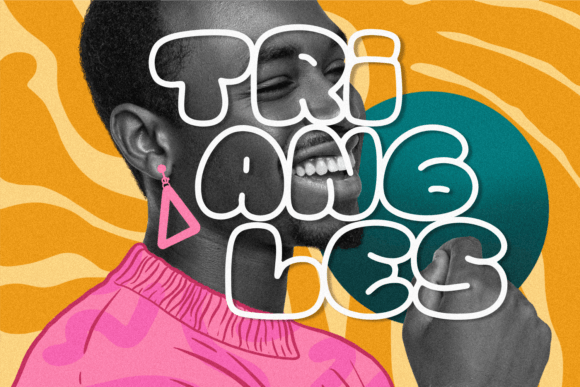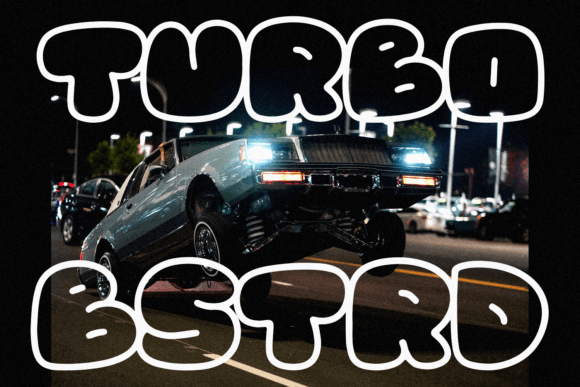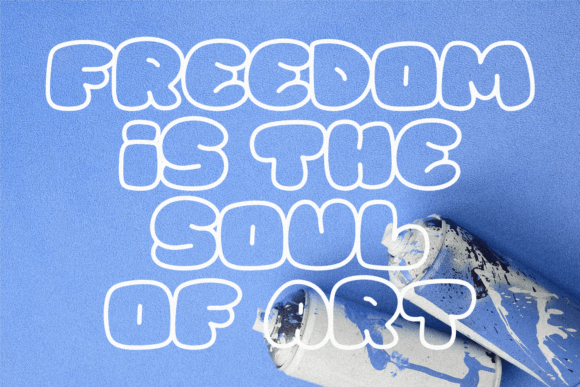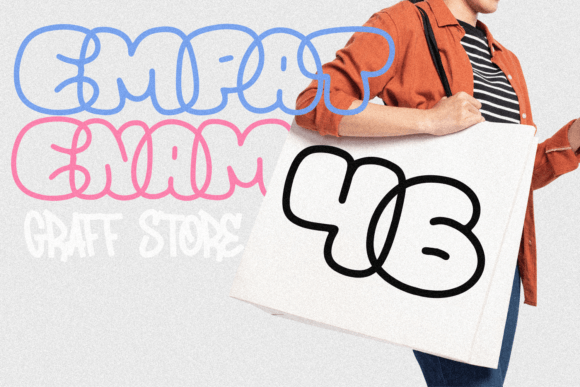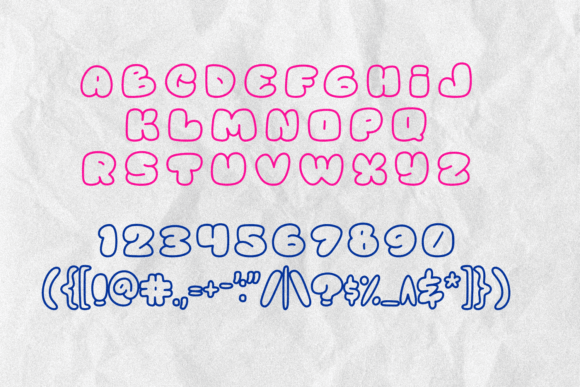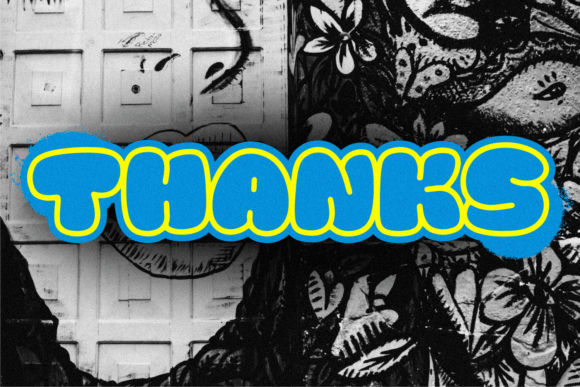
Introducing Bobagum Font: The Ultimate Graffiti Chubby Decorative Font
Are you a designer, crafty enthusiast, or simply someone who loves to add a touch of personality to their projects? Look no further than the Bobagum Font! This graffiti chubby decorative font is the perfect addition to your font library, offering a wide range of creative possibilities. In this article, we’ll dive into the world of Bobagum Font, exploring its features, uses, and benefits.
What is Bobagum Font?
Bobagum Font is a unique and eye-catching graffiti-style font, characterized by its chubby and playful design. Its distinctive look makes it perfect for adding a touch of whimsy and fun to various projects. Whether you’re working on a wedding invitation, a fashion brand’s logo, or a social media post, Bobagum Font is sure to make your design stand out.
Features of Bobagum Font
So, what makes Bobagum Font so special? Here are some of its key features:
- Graffiti-style design: Bobagum Font boasts a distinctive graffiti-inspired look that’s perfect for adding an edgy touch to your designs.
- Chubby and playful: The font’s chubby design makes it both fun and playful, adding a touch of personality to any project.
- Highly versatile: Bobagum Font can be used for a wide range of projects, from events and weddings to fashion, apparel, and more.
- Easy to use: This font is incredibly easy to use, making it perfect for designers of all skill levels.
Uses of Bobagum Font
So, what can you use Bobagum Font for? The possibilities are endless! Here are some ideas to get you started:
- Events and weddings: Add a touch of personality to your event invitations, programs, and signage with Bobagum Font.
- Fashion and apparel: Use Bobagum Font to create eye-catching logos, branding, and packaging for your fashion or apparel brand.
- Signatures and album covers: Add a touch of whimsy to your signatures, album covers, or music-related projects with this unique font.
- Logos and branding: Create memorable logos and branding for your business or personal projects with Bobagum Font.
- Magazines and social media posts: Use Bobagum Font to add a touch of personality to your magazine articles, social media posts, or blog headers.
- Advertisements: Make your advertisements stand out with this eye-catching font.
Benefits of Using Bobagum Font
So, why should you add Bobagum Font to your font library? Here are some benefits:
- Enhance your creativity: With Bobagum Font, you’ll have access to a unique and versatile font that can help spark your creativity.
- Stand out from the crowd: This font’s distinctive design ensures that your projects will stand out from the crowd.
- Save time: With its easy-to-use design, Bobagum Font can save you time and effort in your design projects.
- Perfect for DIY projects: Whether you’re a crafty enthusiast or a DIY expert, Bobagum Font is perfect for adding a personal touch to your projects.
In conclusion, Bobagum Font is an incredible addition to any designer’s or crafty enthusiast’s font library. Its unique graffiti chubby decorative design makes it perfect for a wide range of projects, from events and weddings to fashion, apparel, and more. With its ease of use, versatility, and eye-catching design, Bobagum Font is sure to enhance your creativity and help your projects stand out from the crowd.